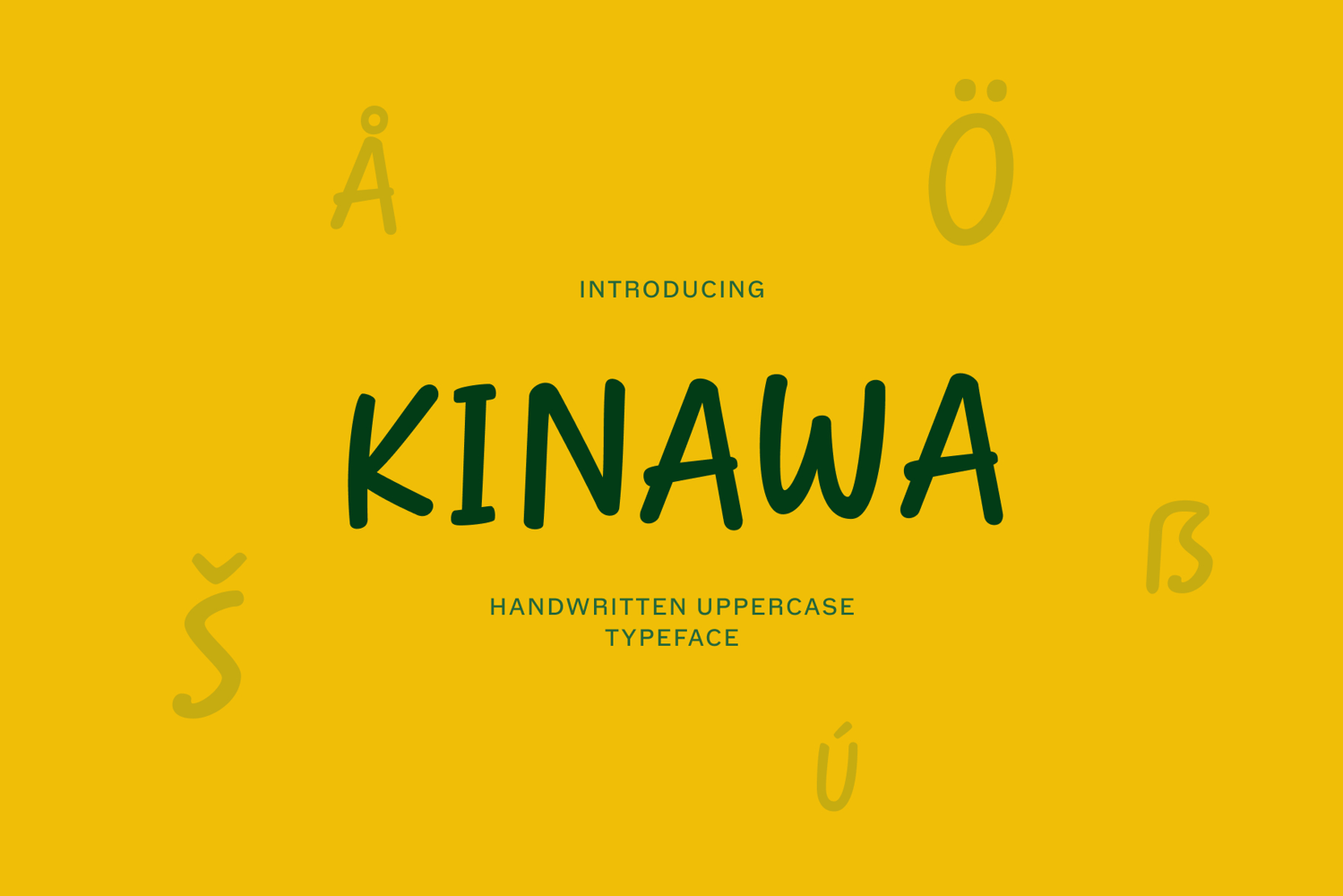
Kinawa - Playful Handwritten Uppercase Typeface
Kinawa
KINAWA is a playful handwritten uppercase typeface that captures the charm of natural handwriting with a clean and modern appearance. Designed with smooth strokes, organic shapes, and a relaxed rhythm, this font brings a warm, friendly, and authentic feel to any design. Its handcrafted character makes every word feel authentic while maintaining excellent readability, making it suitable for a wide range of creative applications.
Perfect for branding, packaging, posters, social media graphics, book covers, invitations, children's projects, and inspirational quotes, KINAWA adds a unique human touch that helps designs stand out. Whether you're creating bold headlines or expressive visual identities, this typeface delivers a fresh and approachable aesthetic that instantly attracts attention. KINAWA includes uppercase letters, numbers, punctuation, multilingual support, and is available in both OTF and TTF formats.